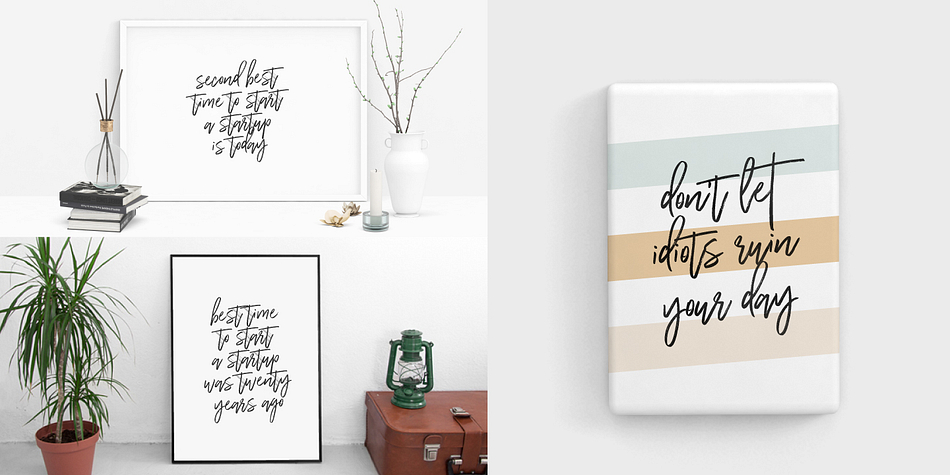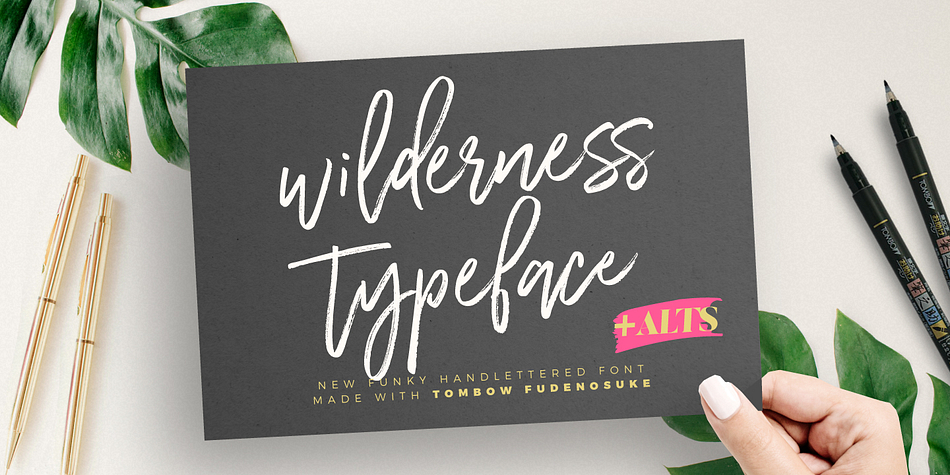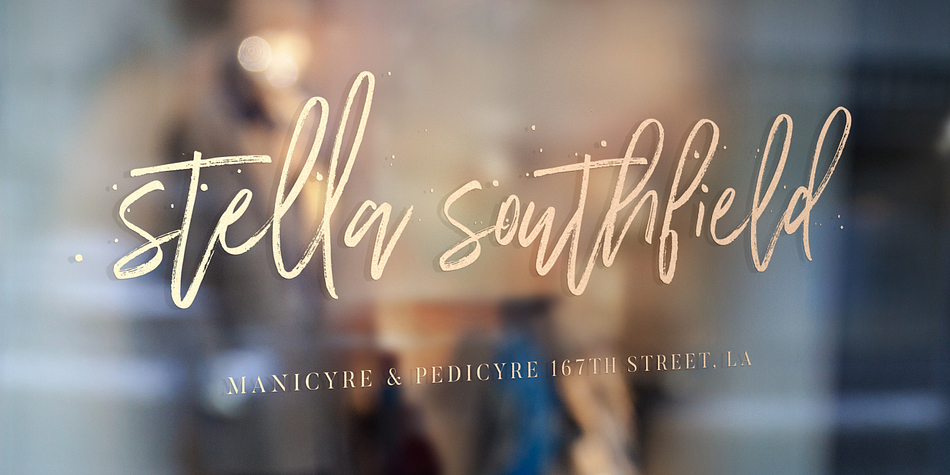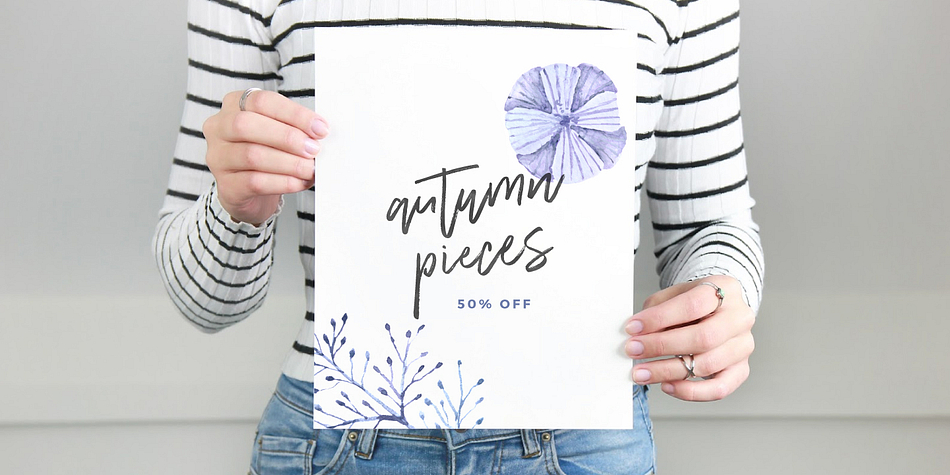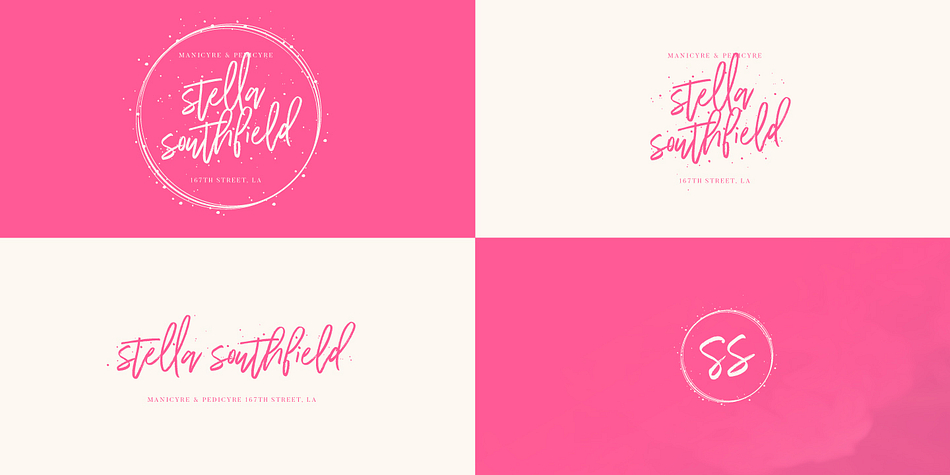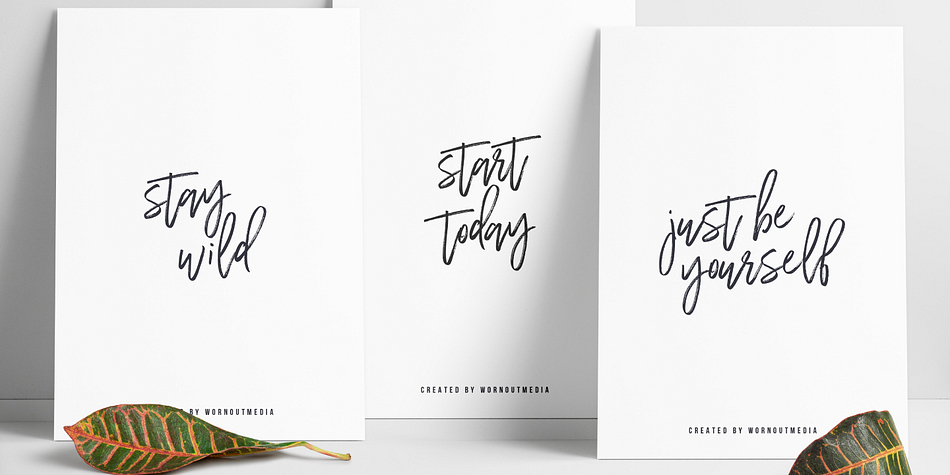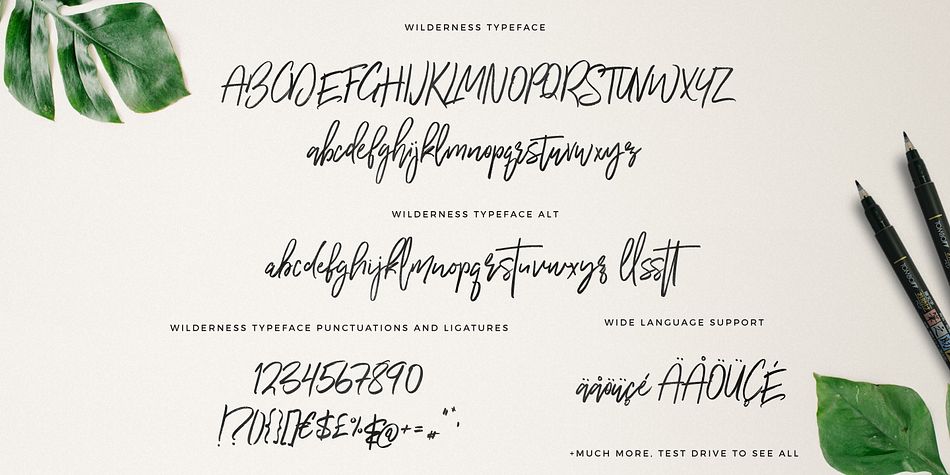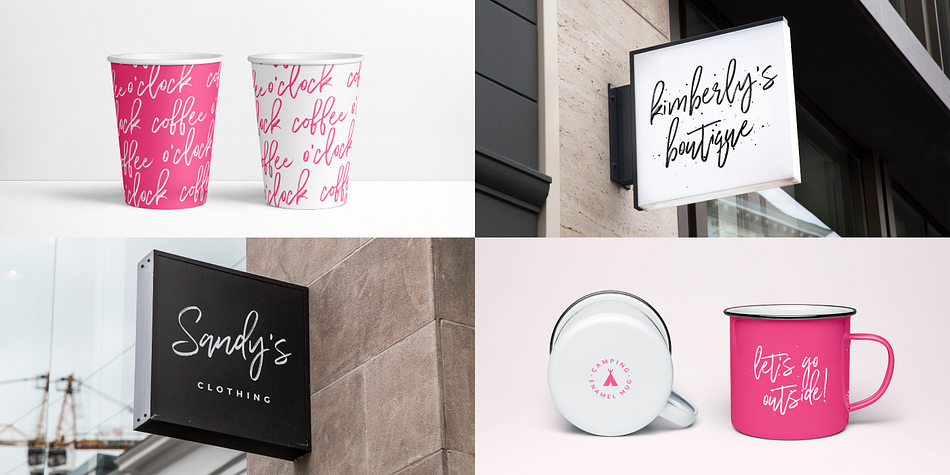
Designed by Mats-Peter Forss, Wilderness Typeface is a hand drawn, brush script and modern calligraphy font family. This typeface has two styles and was published by Mats-Peter Forss.
Wilderness Typeface is a new funky hand lettered font made with Tombow Fudesunoke brush pen. It’s authentically hand lettered font with full alternates (upper and lowercase). Designed to work perfectly in multiple designs like wedding invitations, website logos, Instagram posts and many many more.